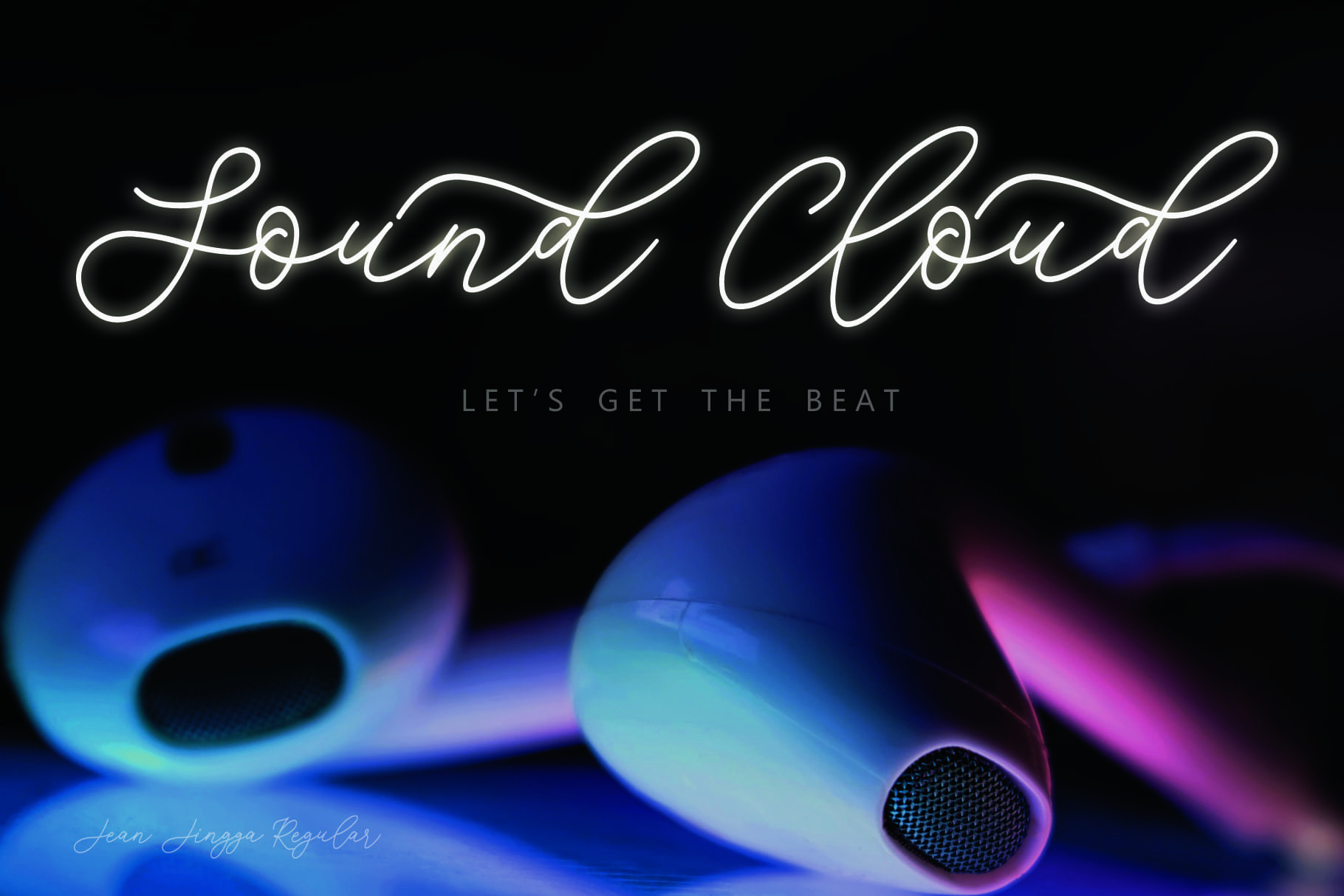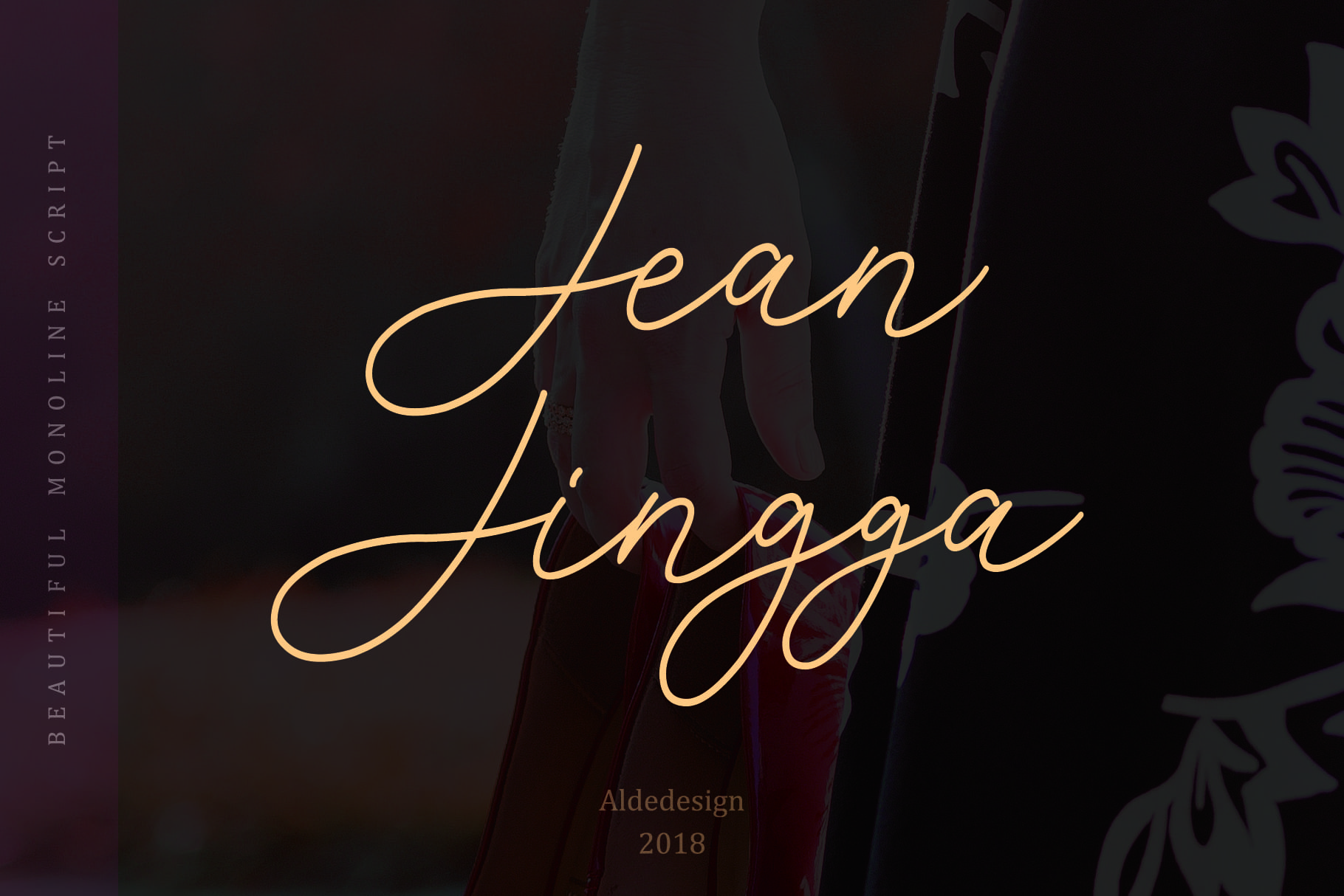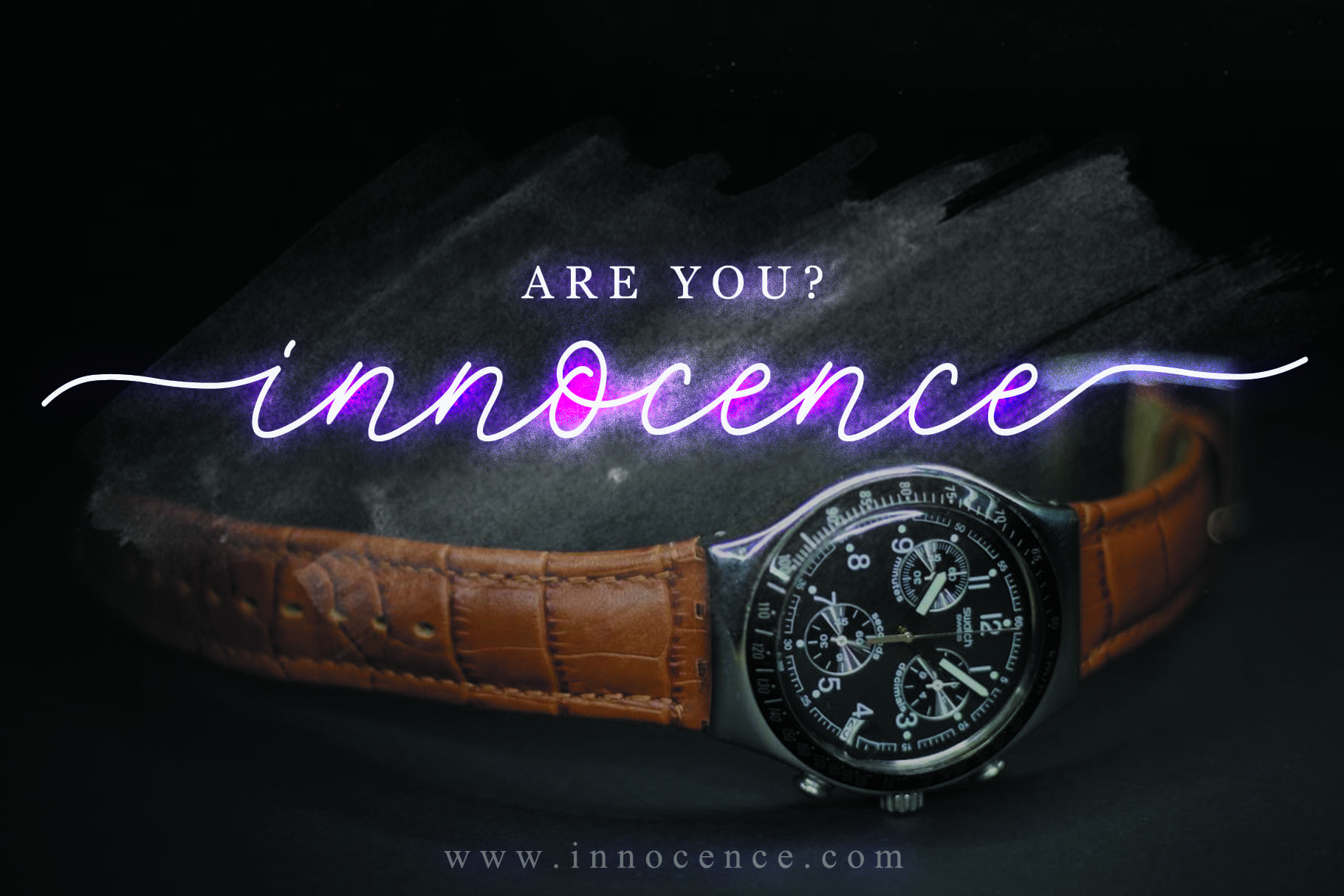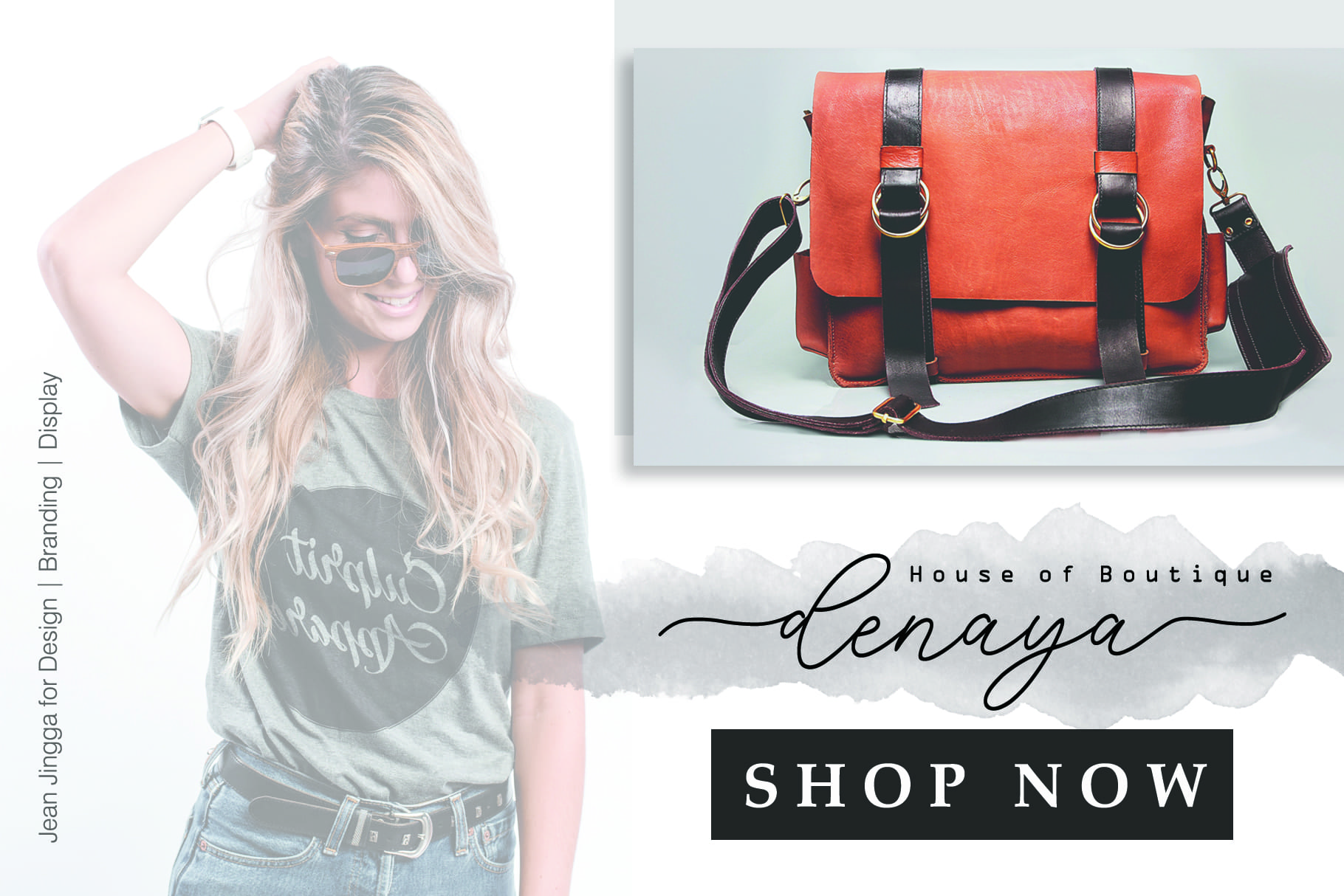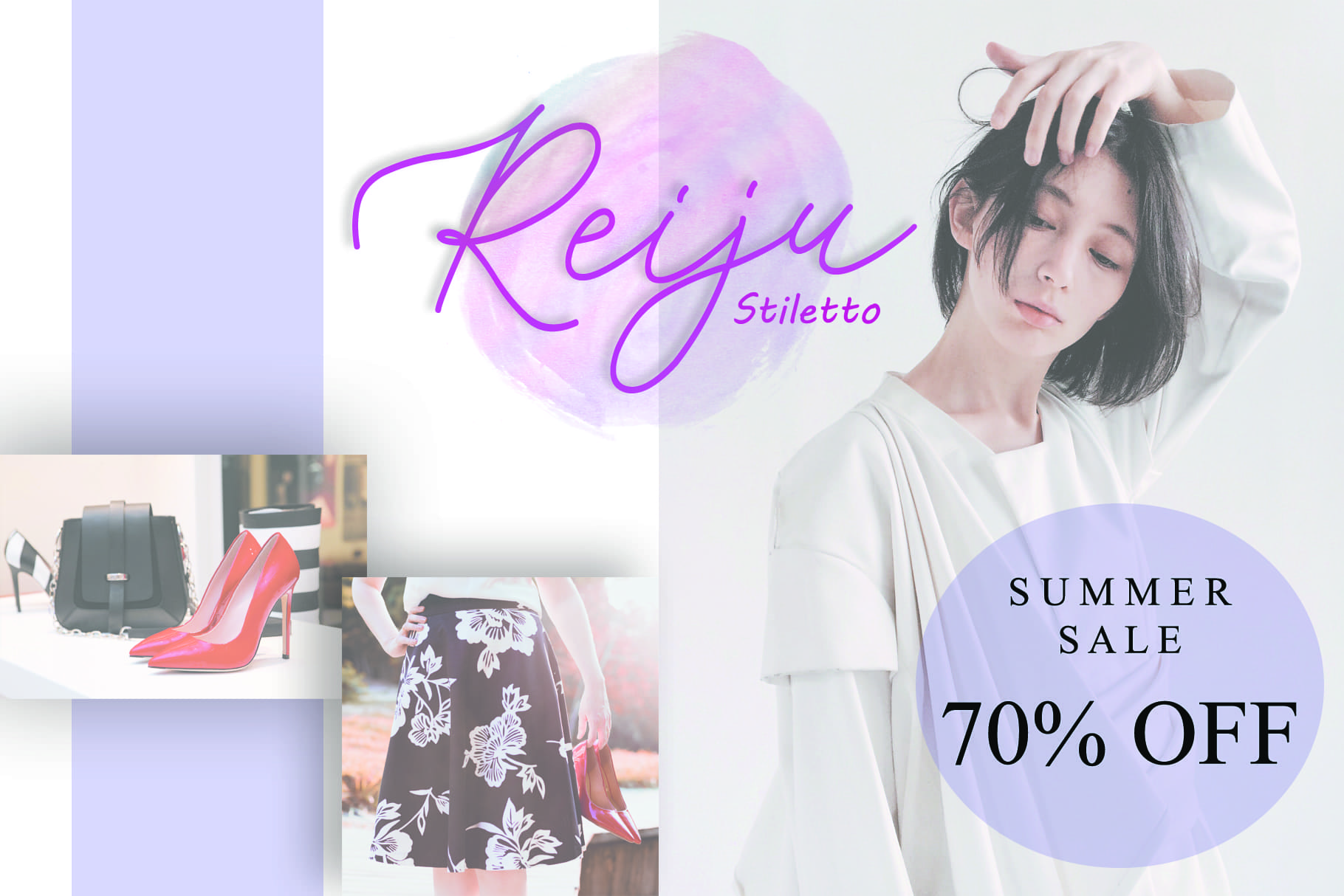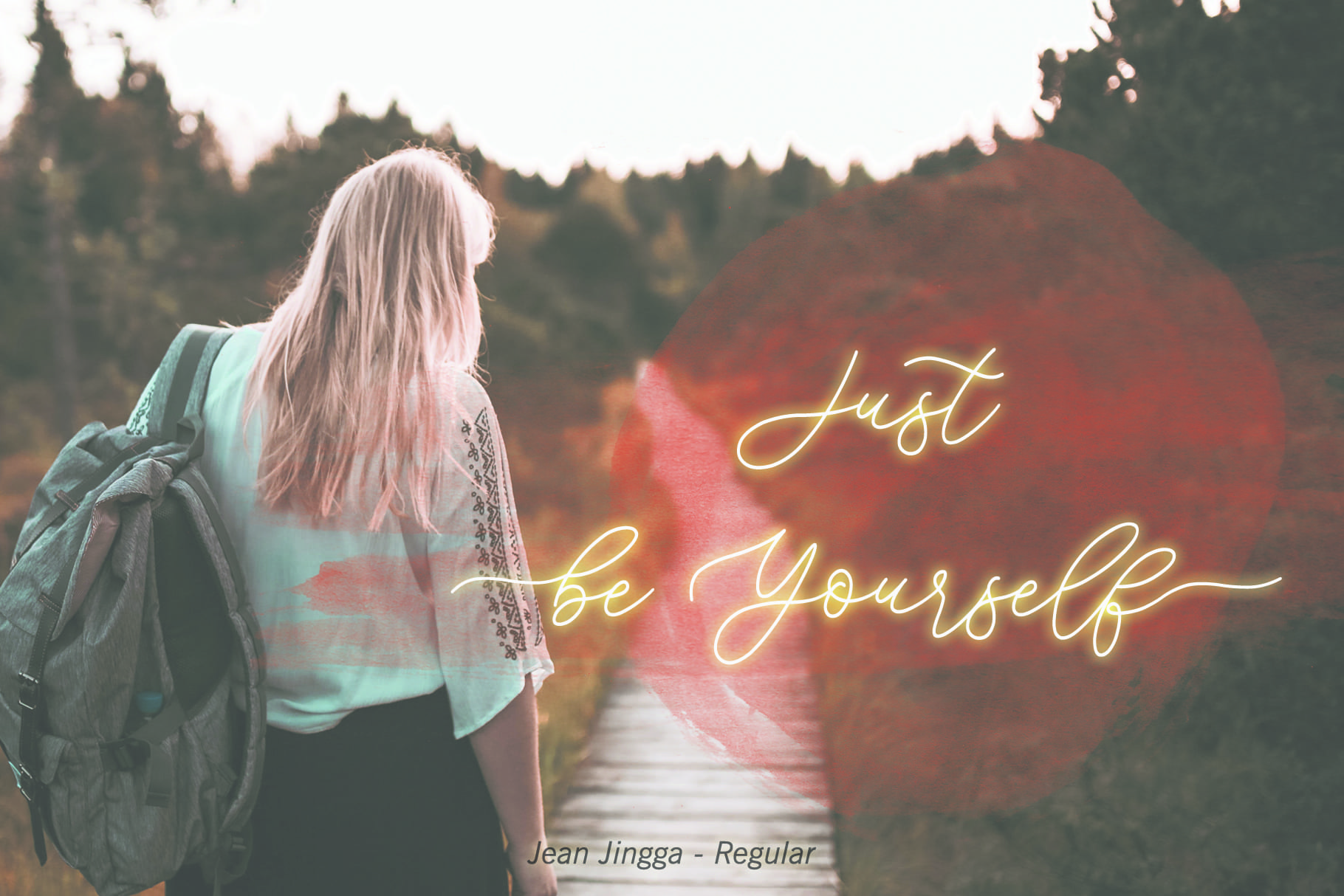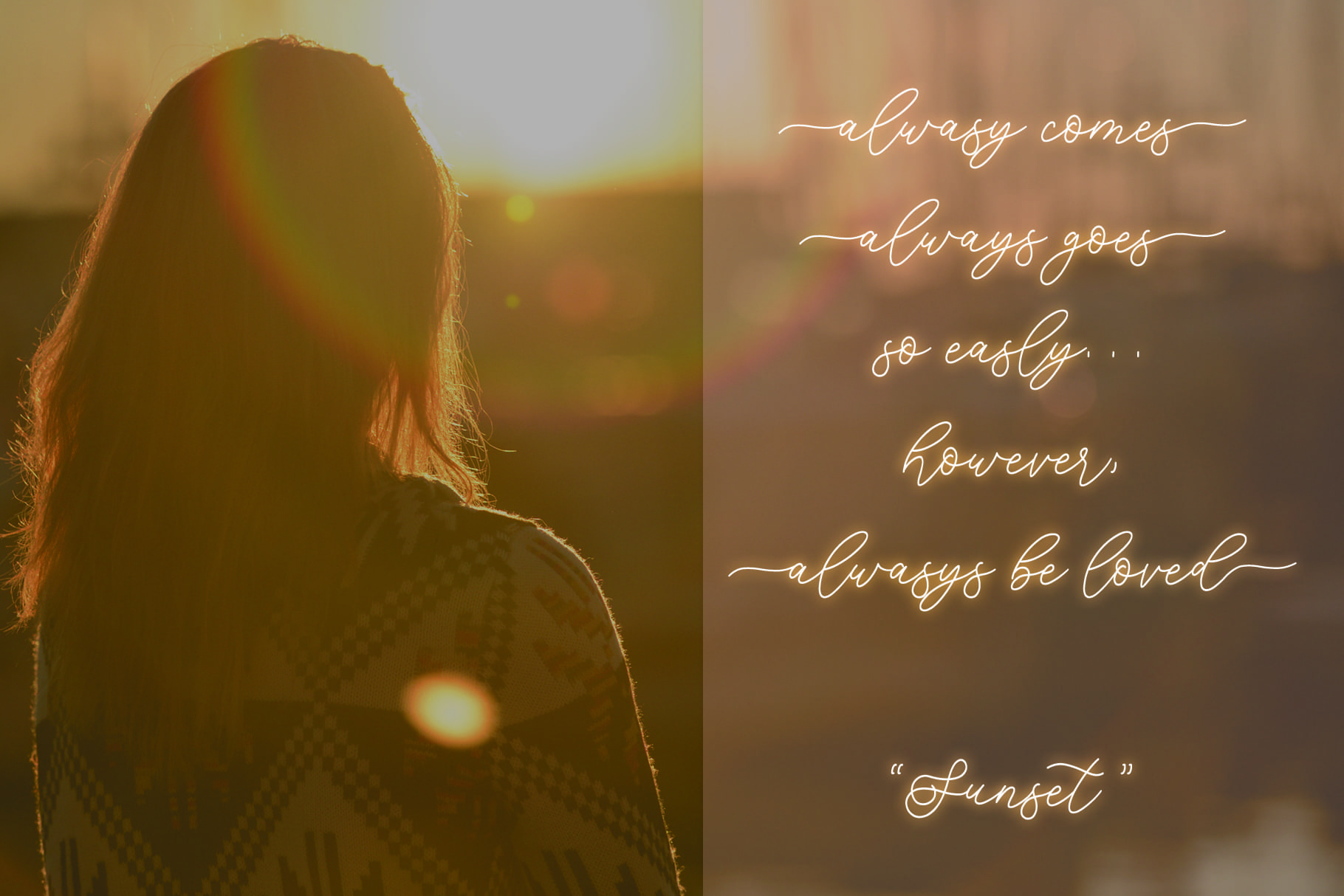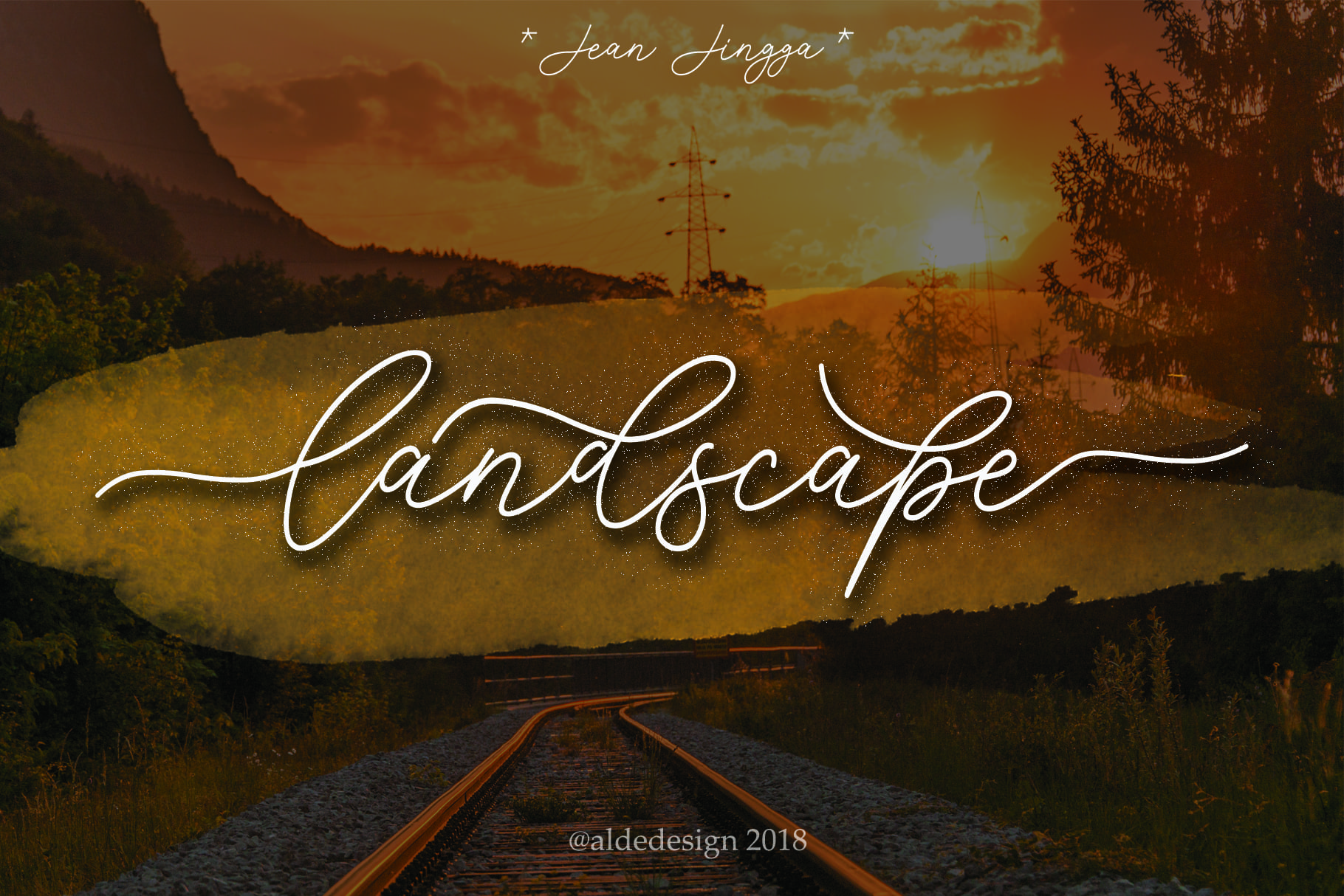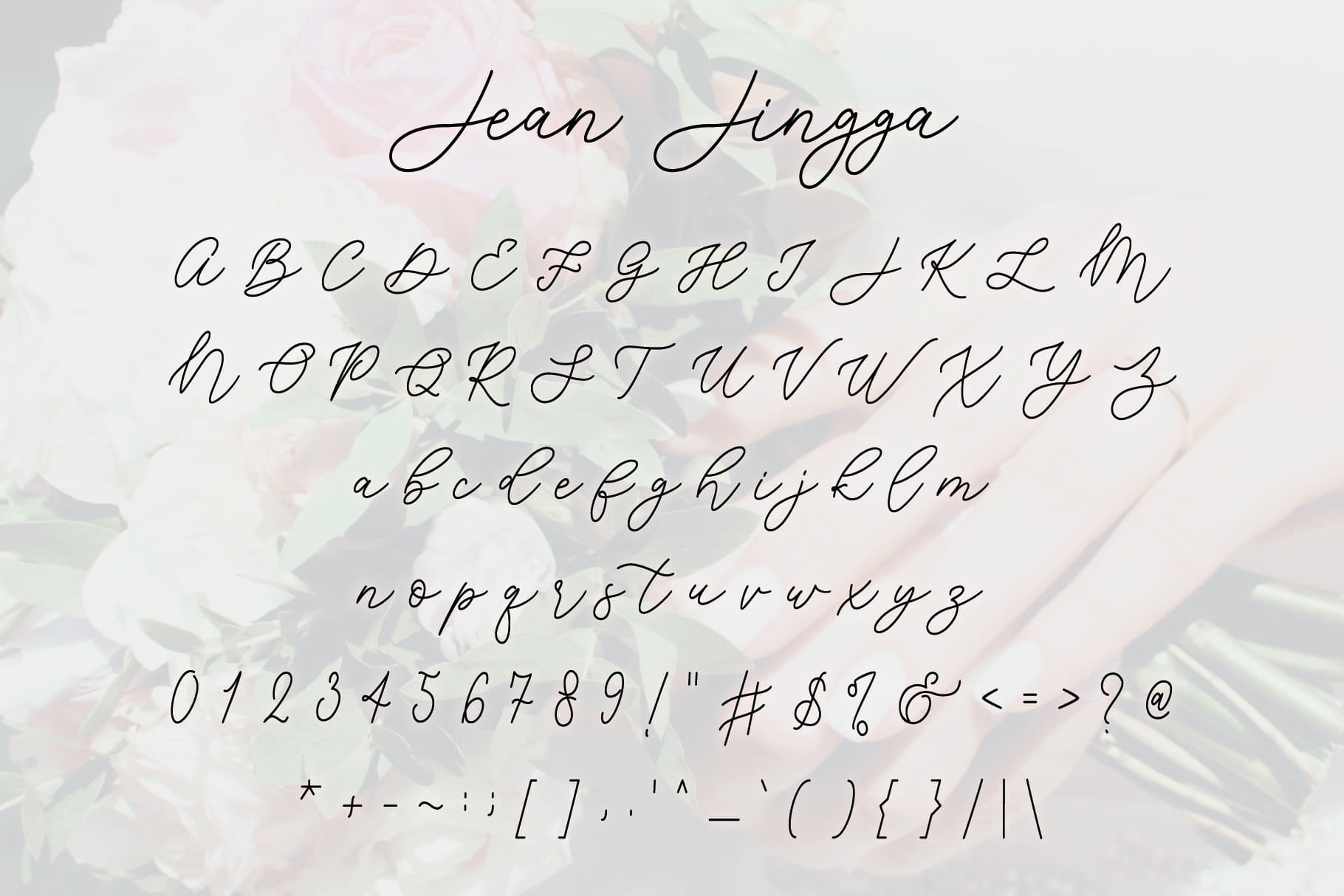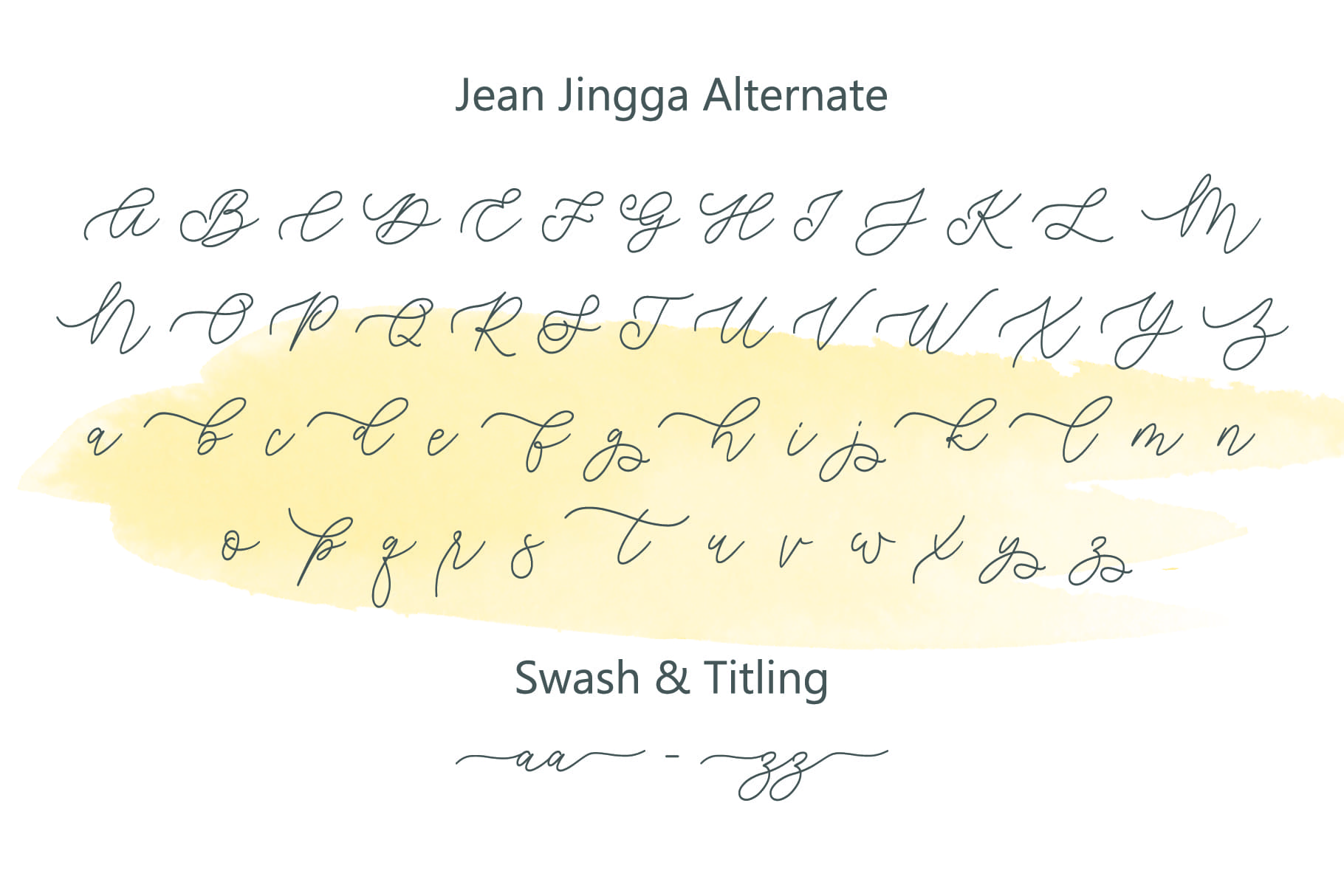
Jean Jingga Family (2 fonts)
From AldeDesign
This font is easy to use, great for signature and can be used to give your projects a modern and casual flair.
AldeDesign was founded by Alde Joox in Indonesia, Yogyakarta. AldeDesign specializes in affordable scripts from very casual to very elegant. The design group is obsessed with product quality, beauty, and application. The fonts are perfectly suited for headlines, invitations, fashion, and packaging design.